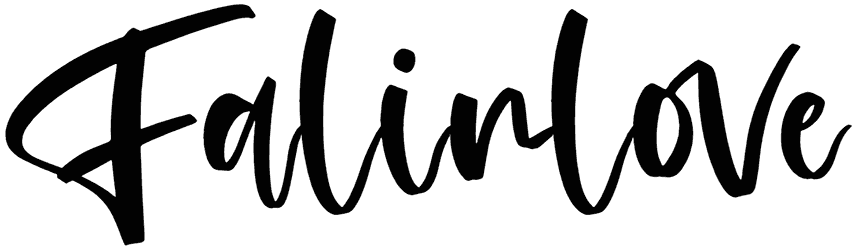
Falinlove Font
Falinlove has two fonts that can transform simple words into something softer and romantic. This cursive handwritten font has a friendly feeling to it, and every character in it has a long and curly design that forms a continuous style in words. You can use it for movie names and posters, sales, events and Valentine party flyers, and book titles.